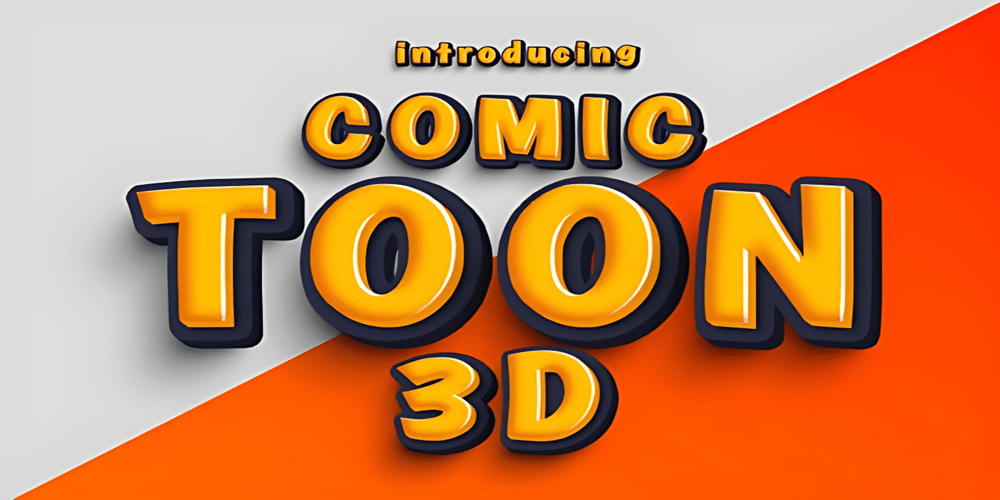
Comic Toon 3 D Font Family was designed by Hans Eduard Meier and published by Adita Fonts. Comic Toon 3 D contains 1 styles and family package options. Comic Toon 3D is a cool and fun Color font 3D Style. It is the perfect font for titles or words needing a more dramatic emphasis. Whatever the topic, this font will be a wonderful asset to your font library, as it has the potential to enhance any creation.COMPATIBILITY Windows Apple/Mac Linux Easily convert to webfont Silhouette Other cutting machines